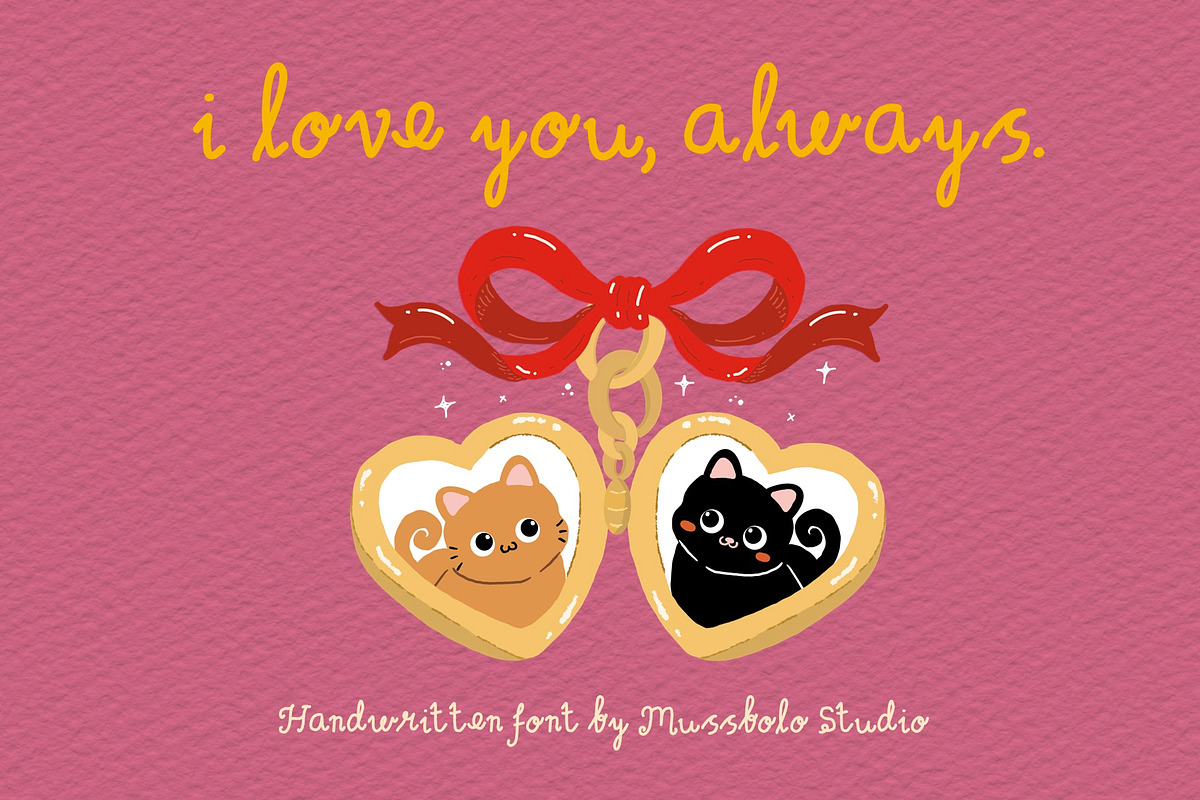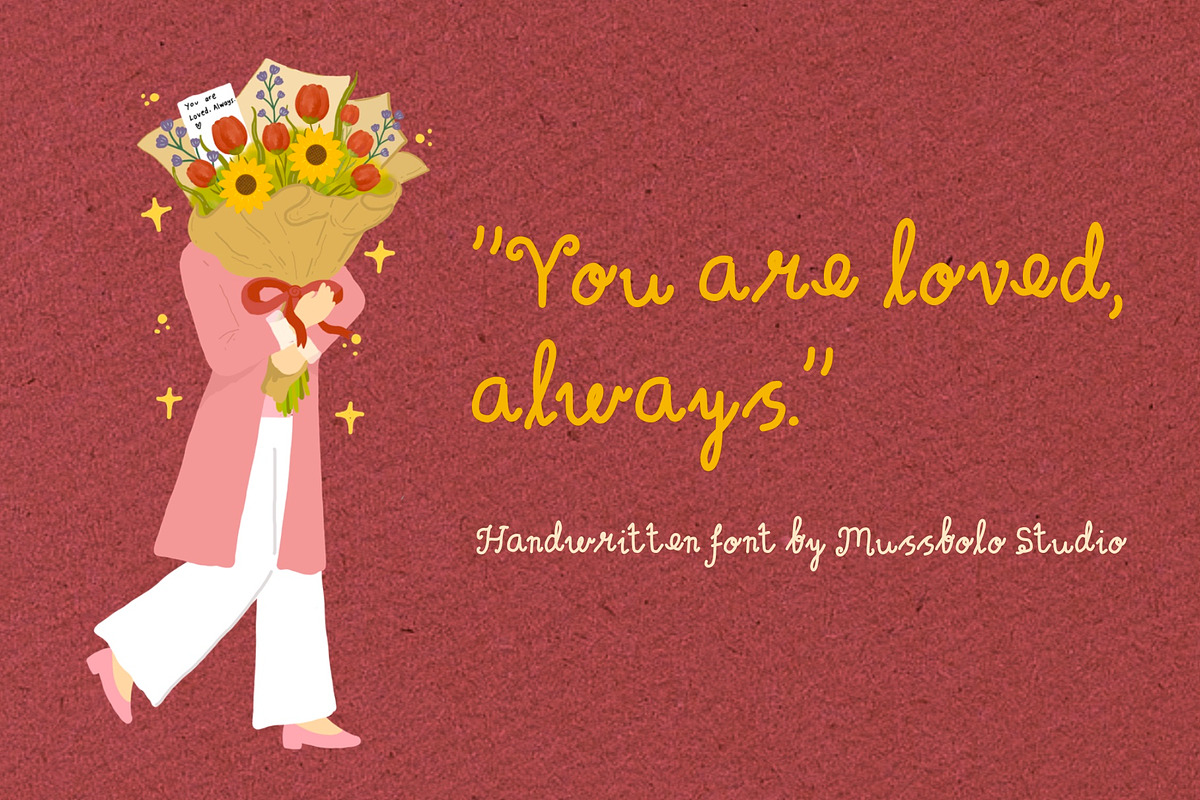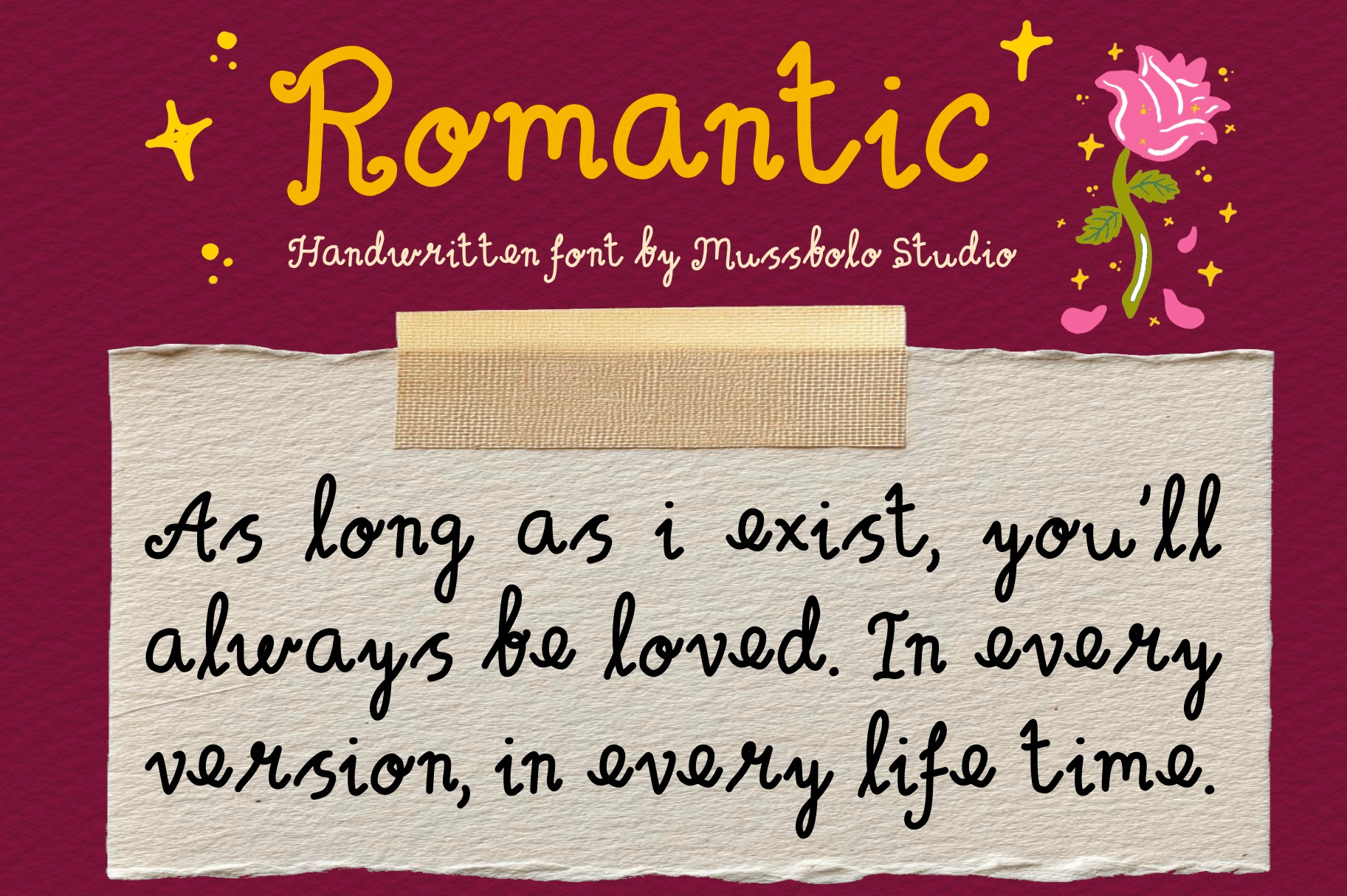
Romantic script handwritten font
Romantic font by Mussbolo Studio is a cute and whimsical handwritten font with a natural flow and playful personality.